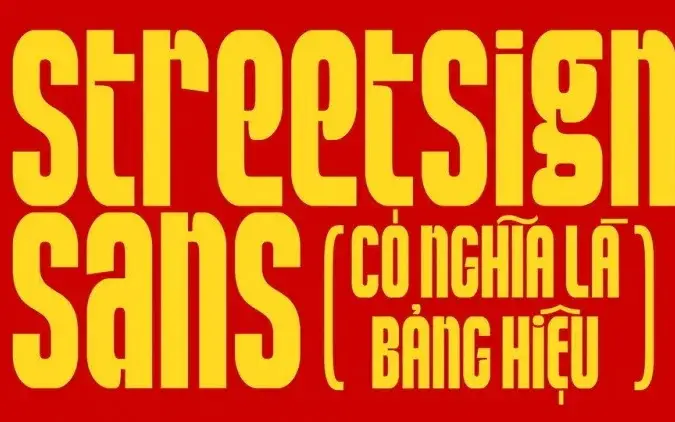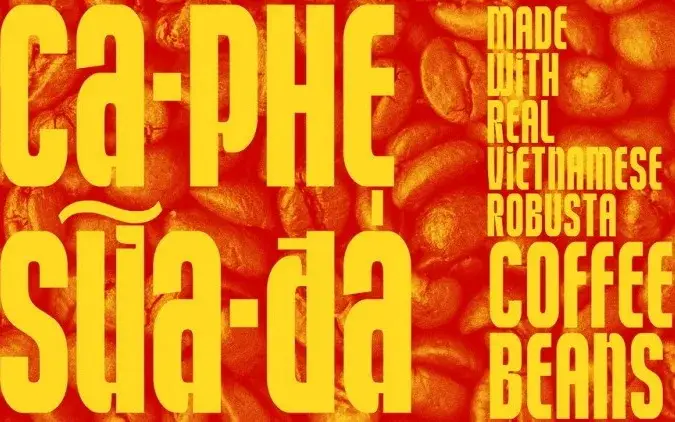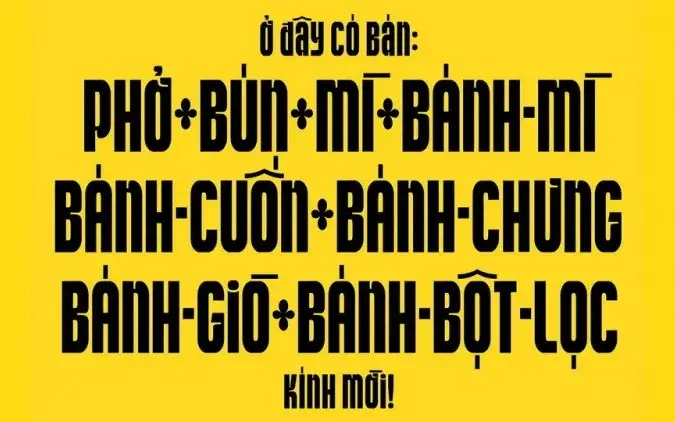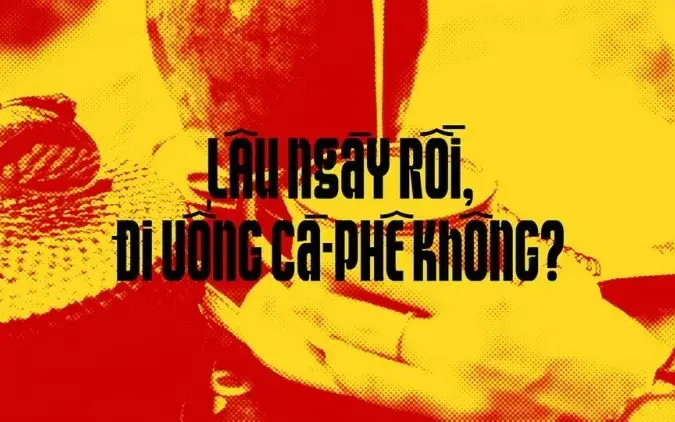
Streetsign Sans Serif Font
The Streetsign Sans Serif Font is a modern and versatile typeface designed to bring clarity and style to your projects. With its clean lines and balanced proportions, this font is perfect for both digital and print applications.
• Stylish sans serif design
• Easy to read at various sizes
• Ideal for branding and logo design
• Great for web design and user interfaces
• Perfect for print materials such as brochures and flyers